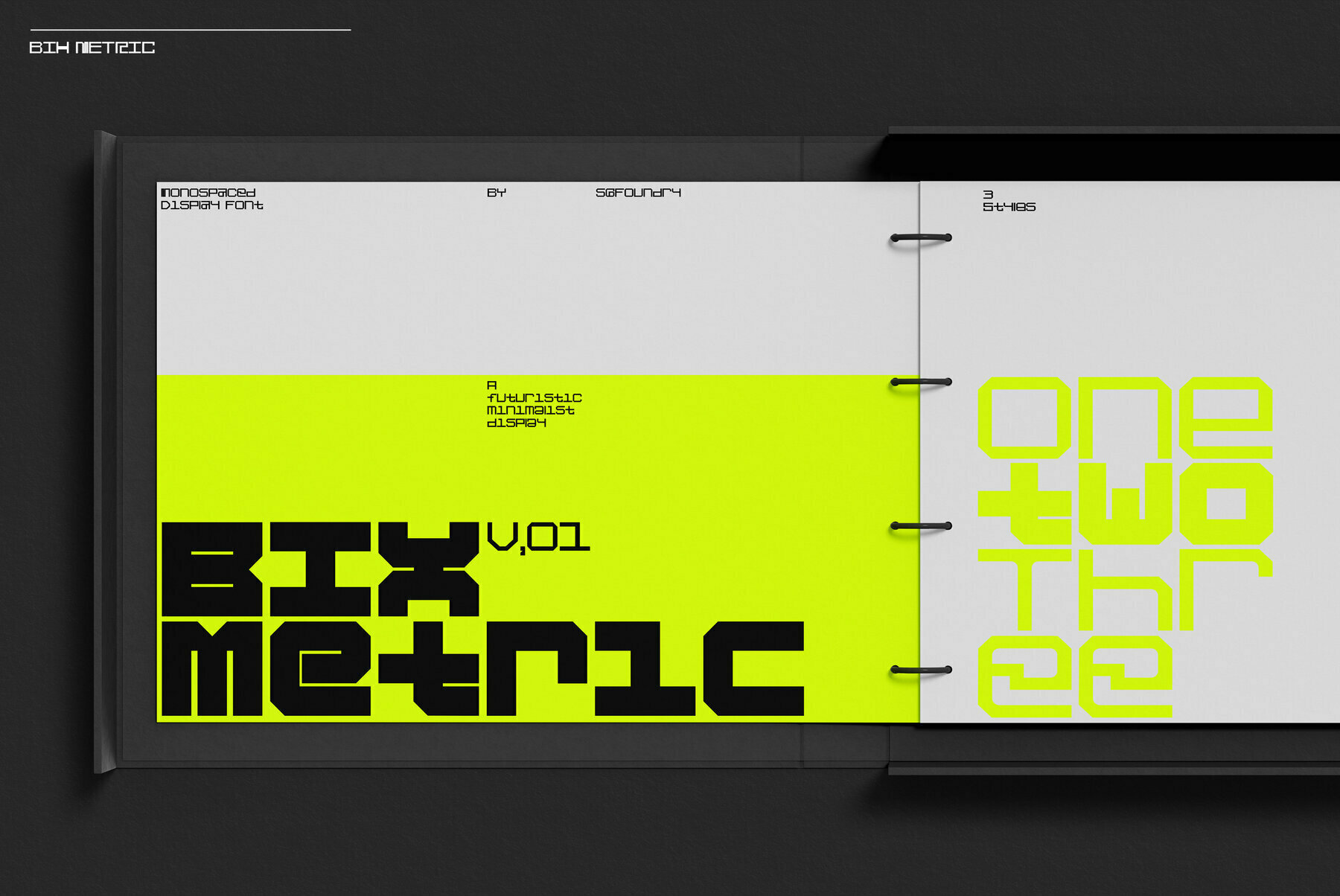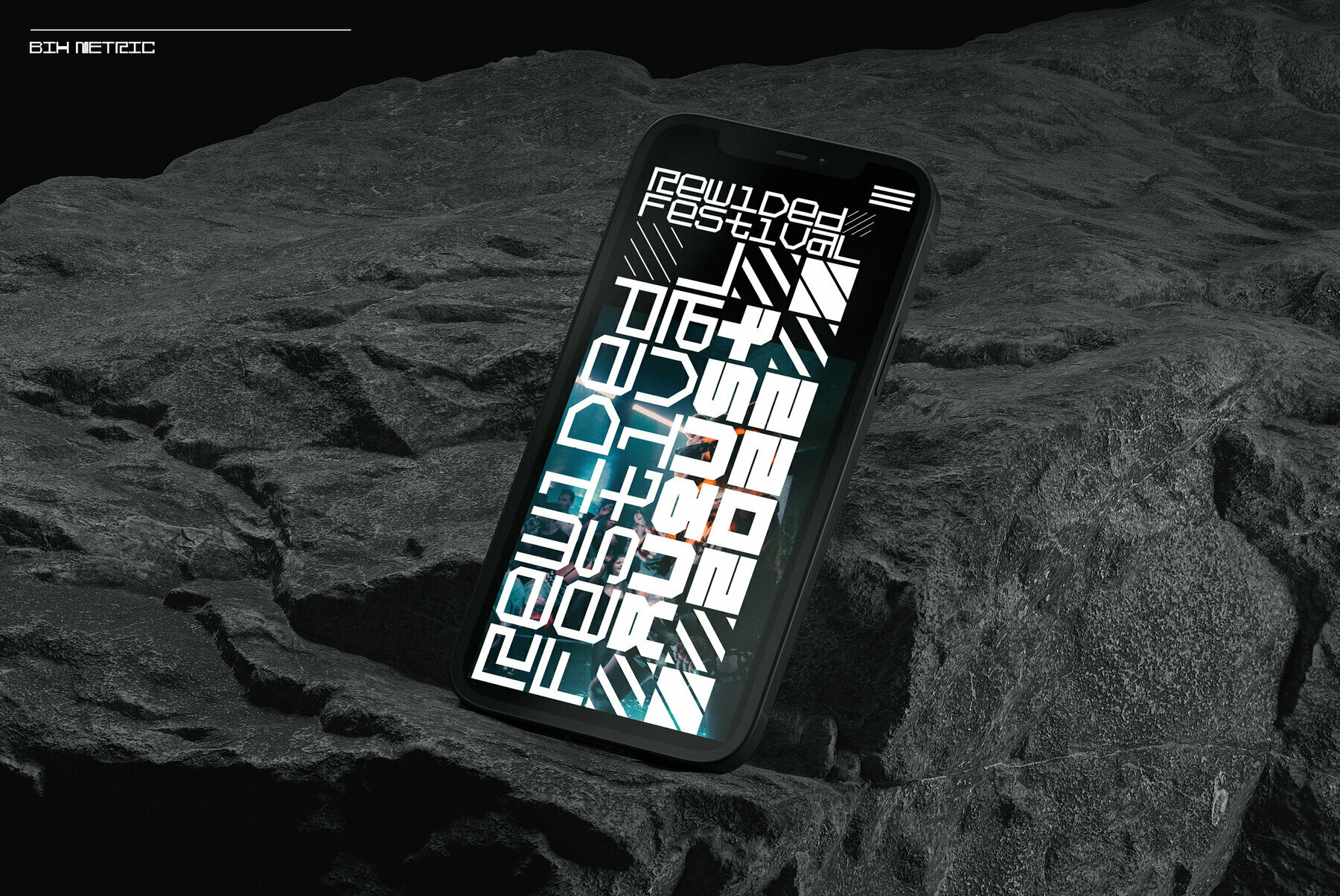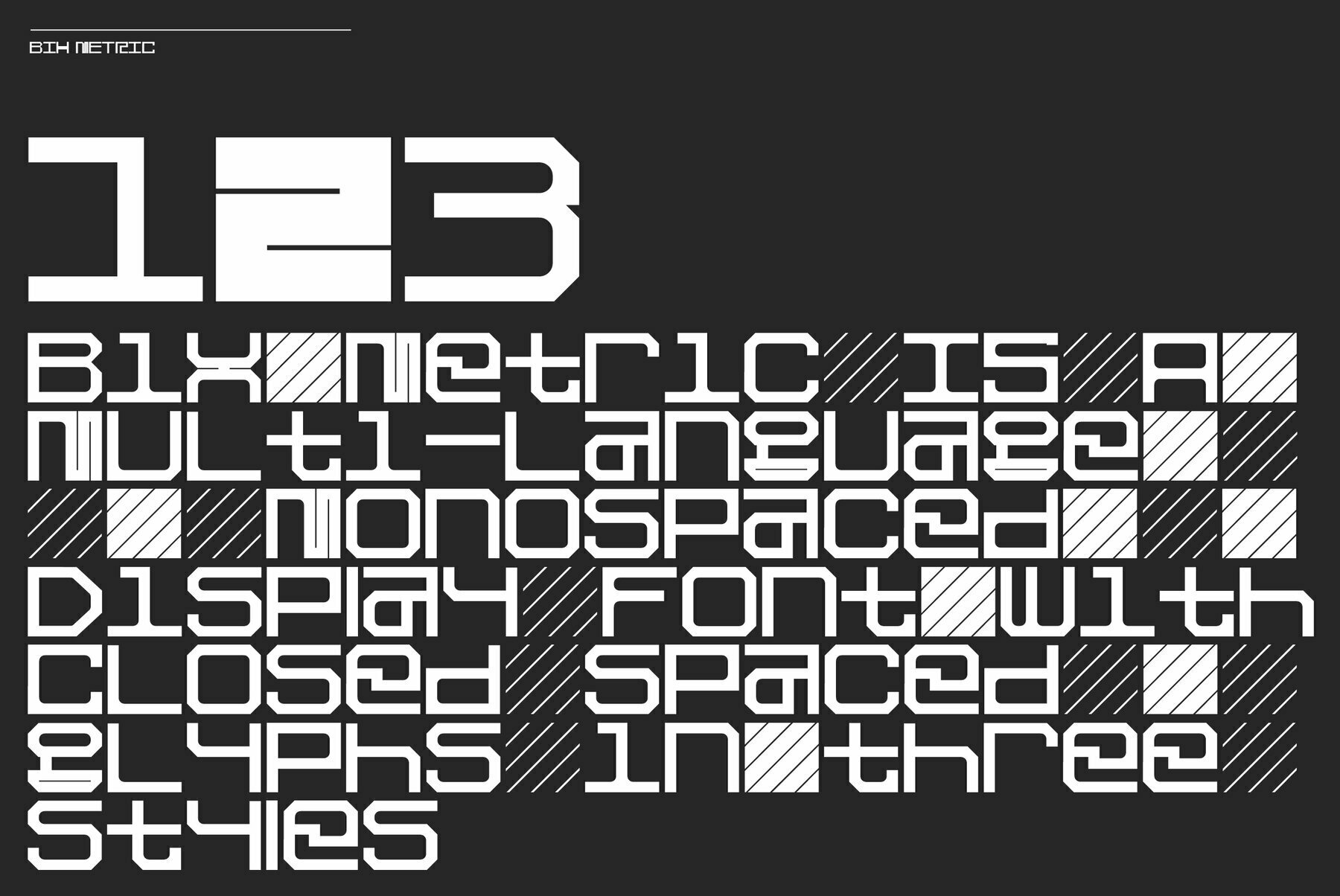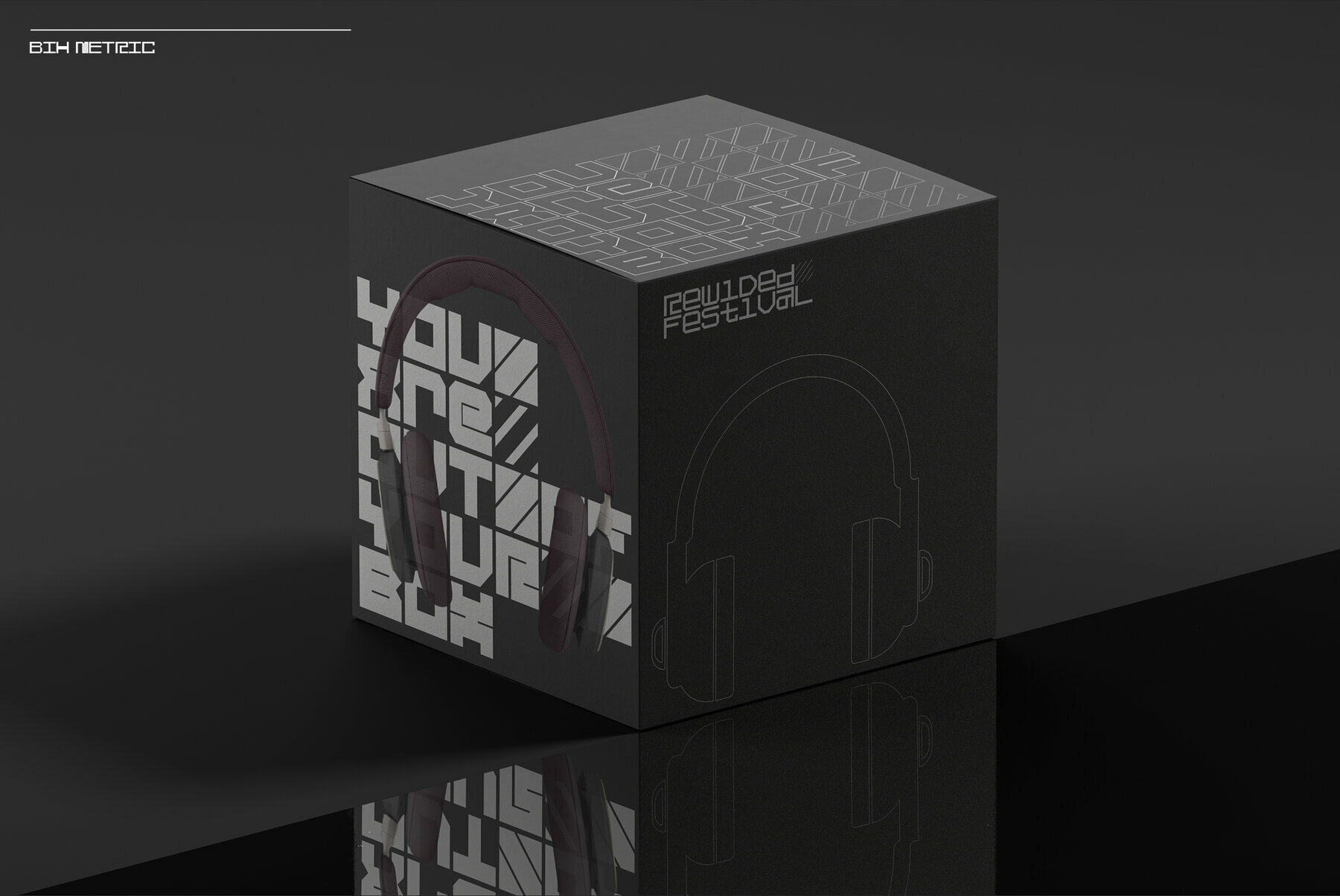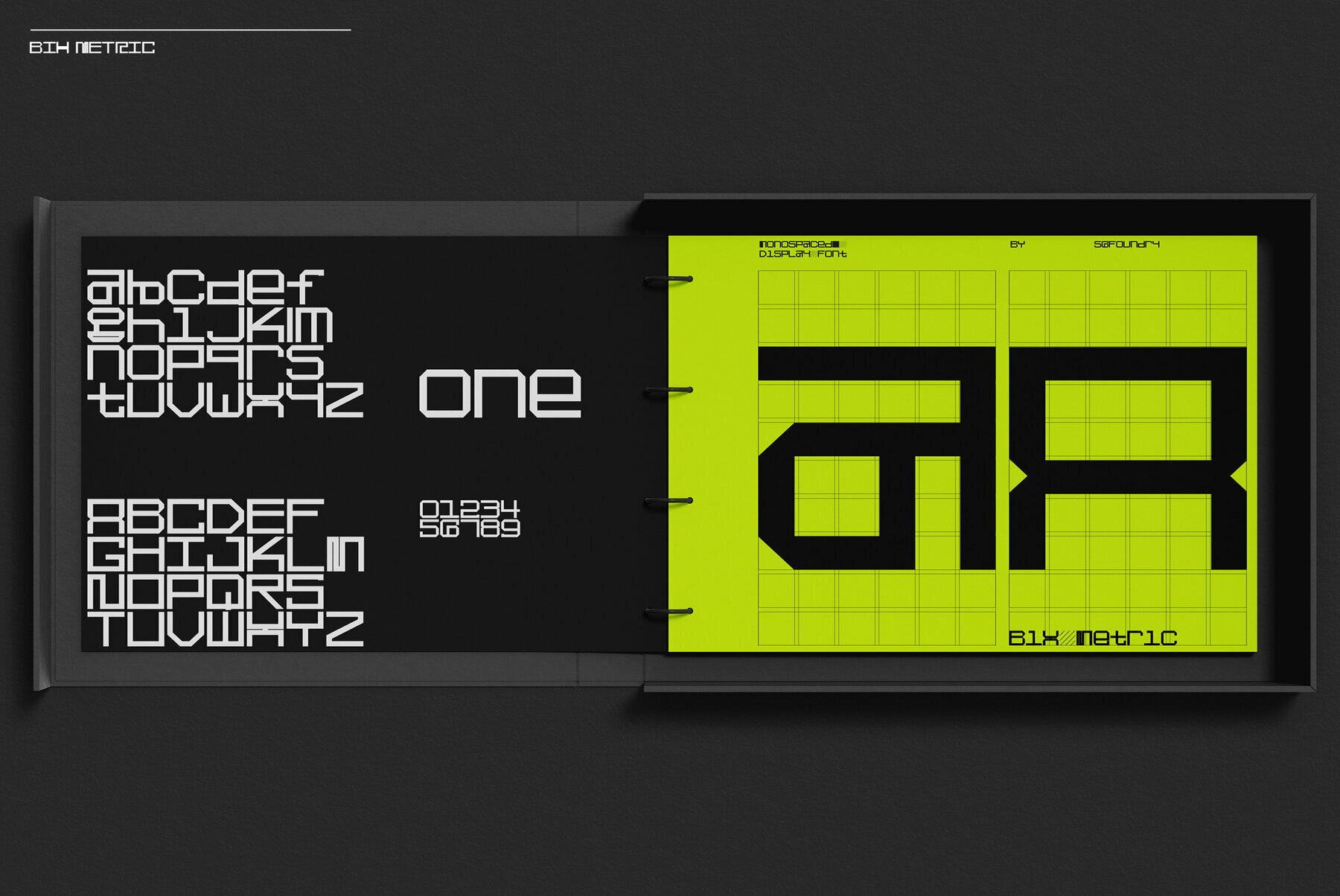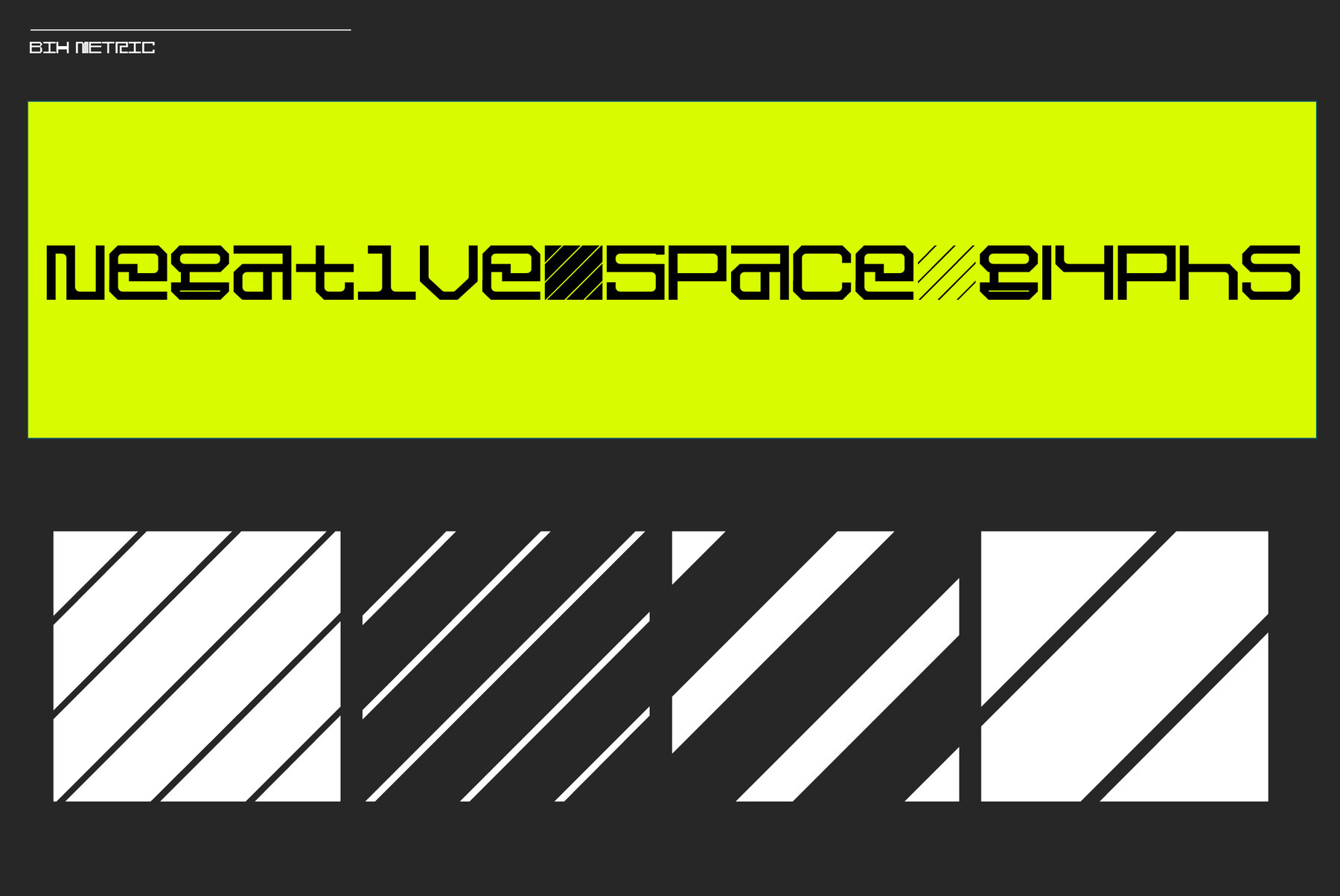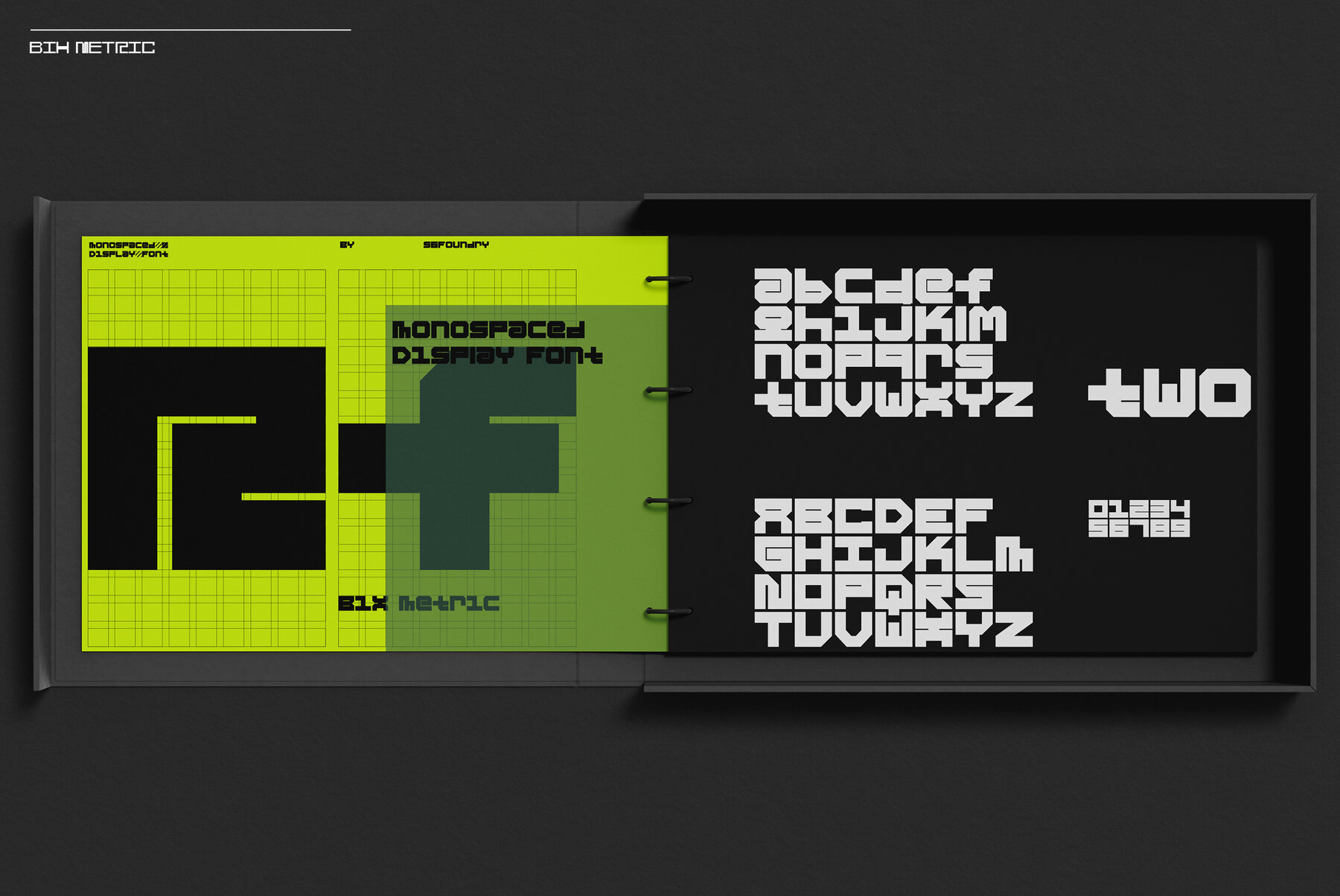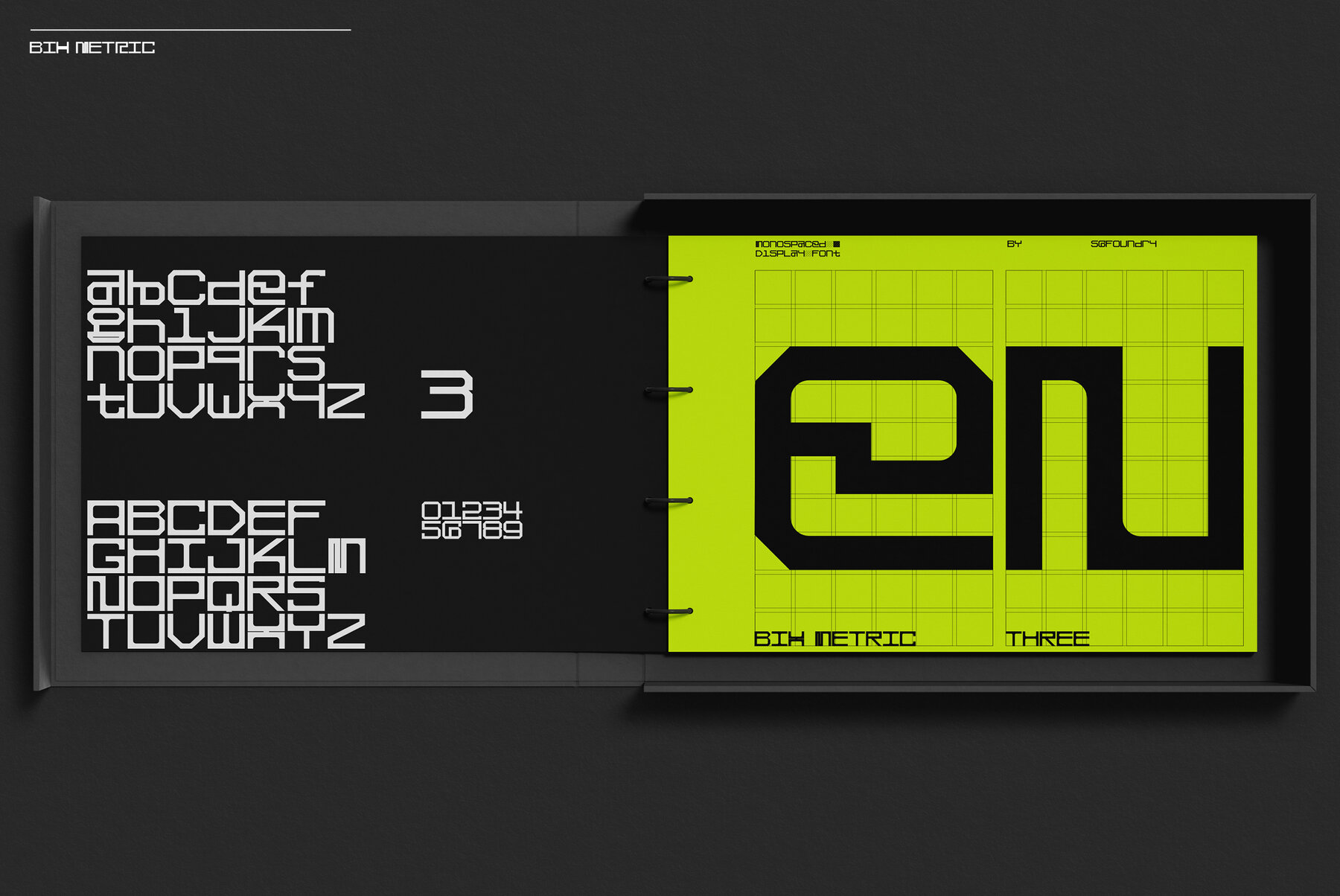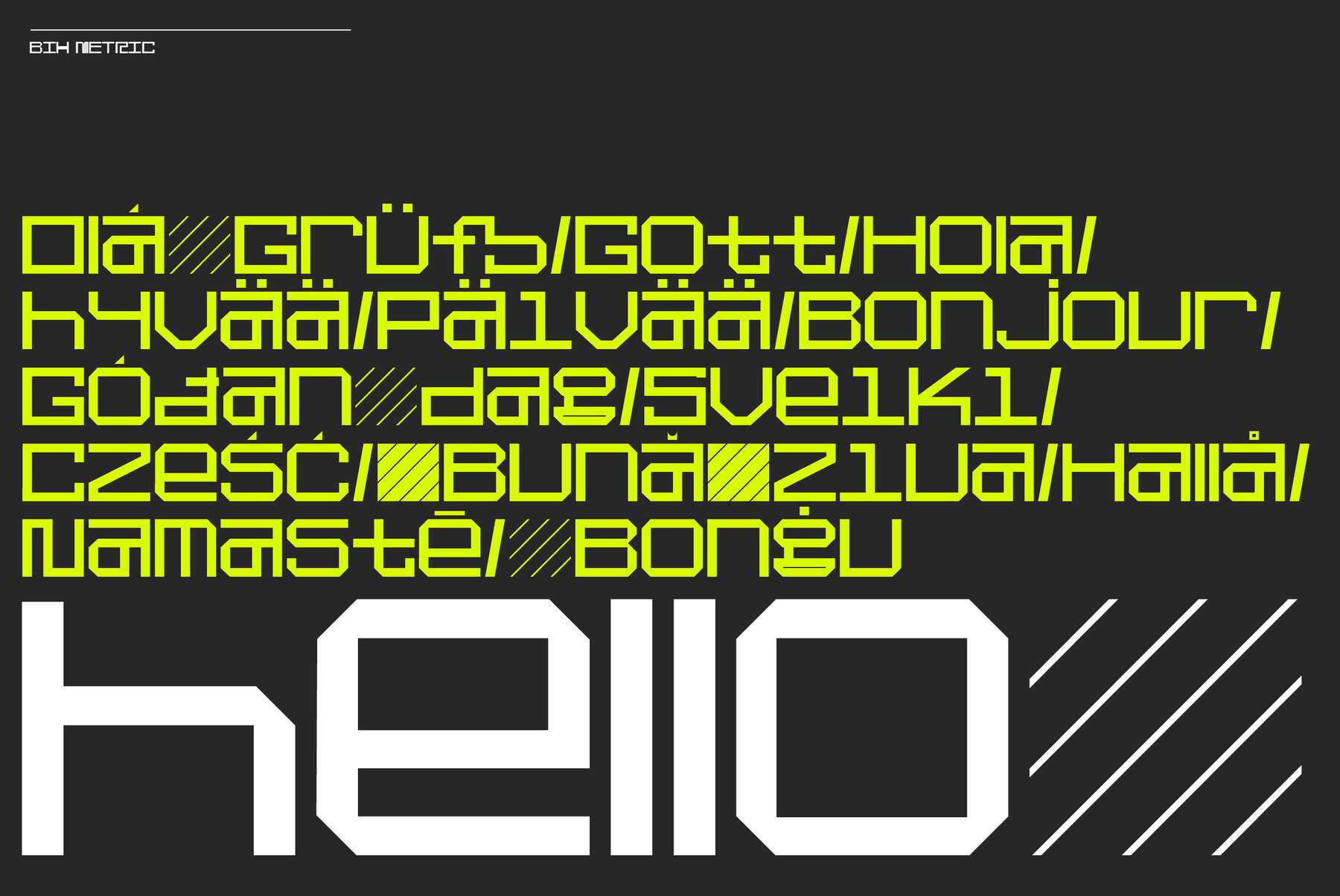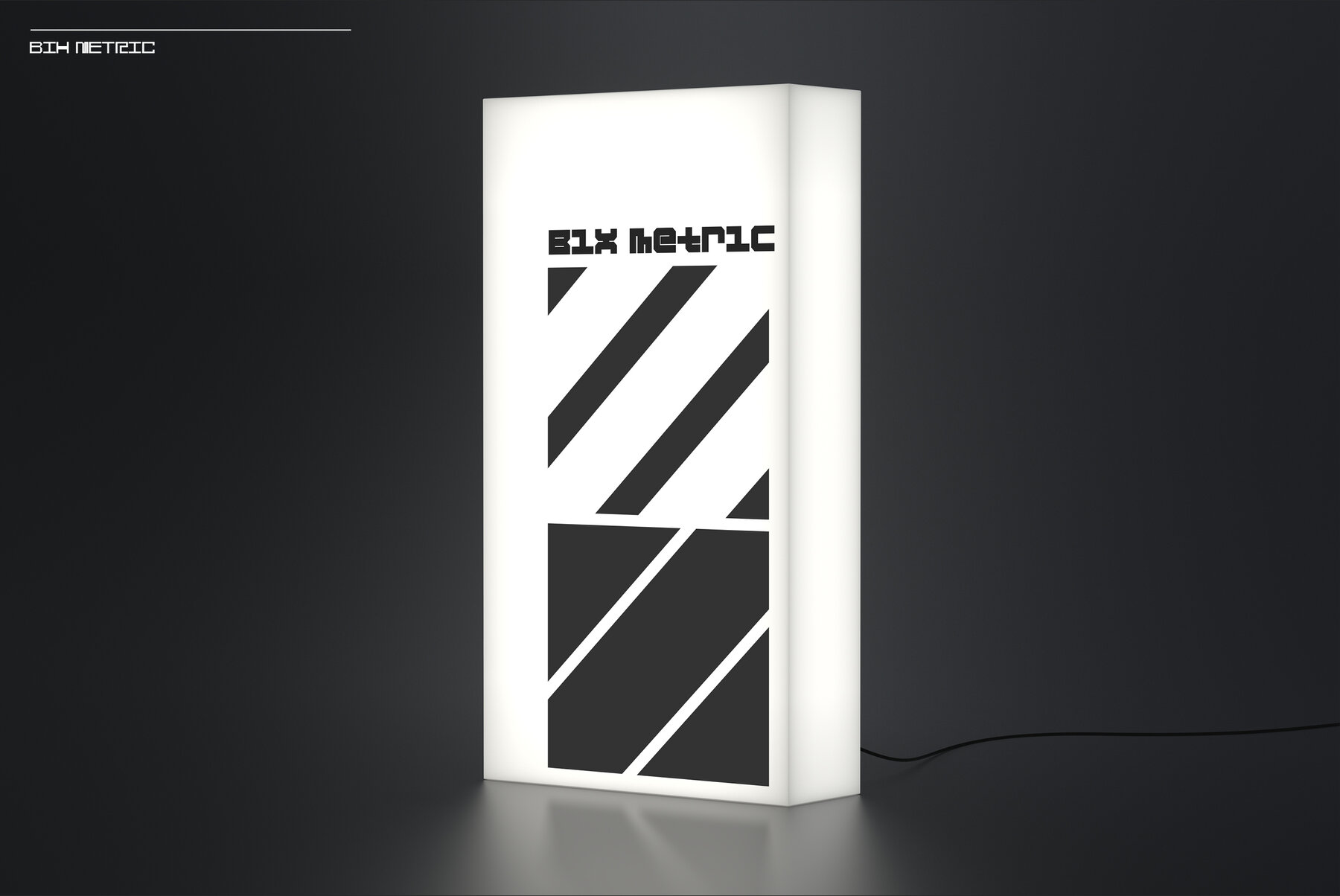
Bix Metric Font
Bix Metric is a modern, one-of-a kind font that will make your designs stand out against the competition. With 3 styles and 80 languages supported this stylistic display type has what you need for all sorts of projects!